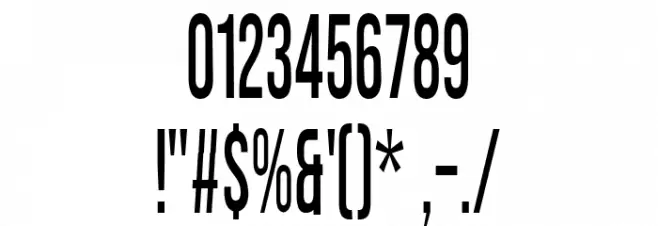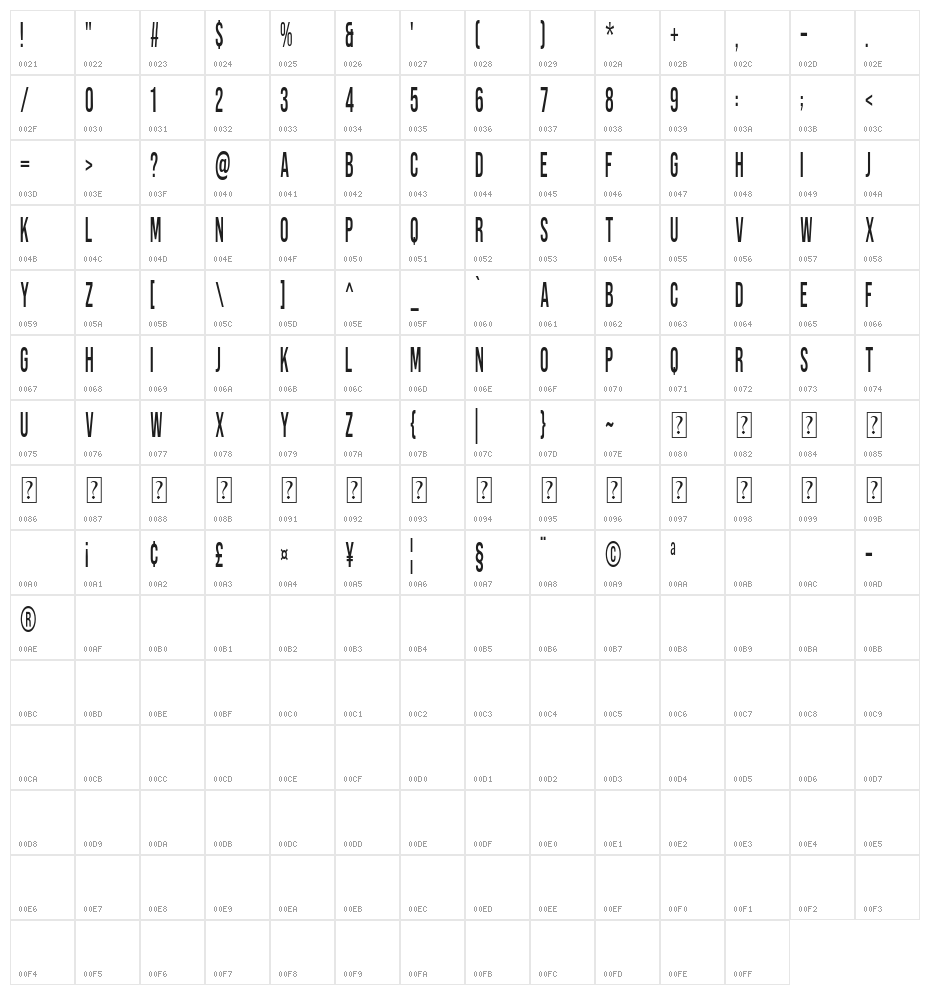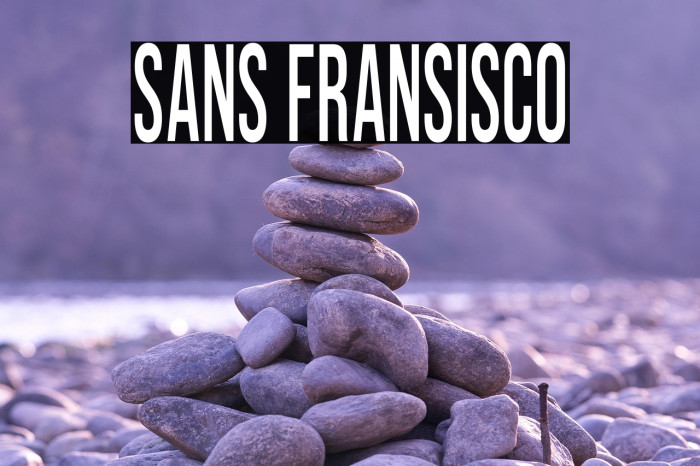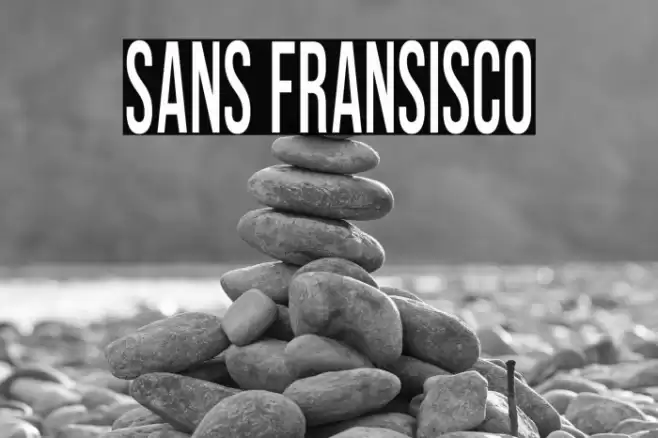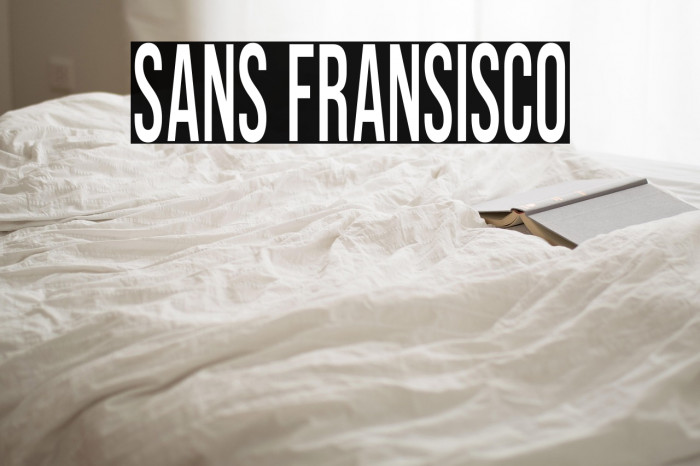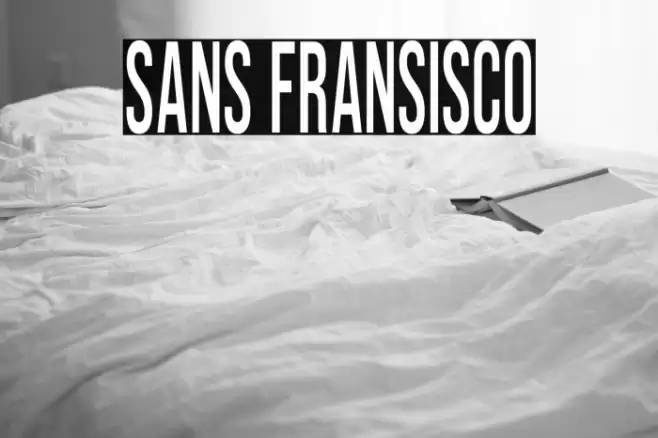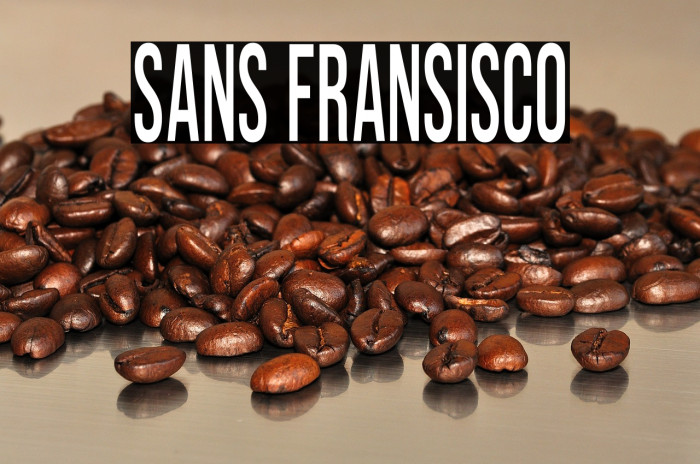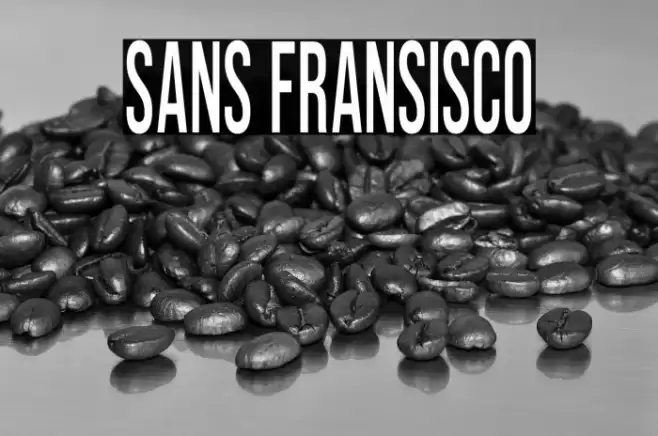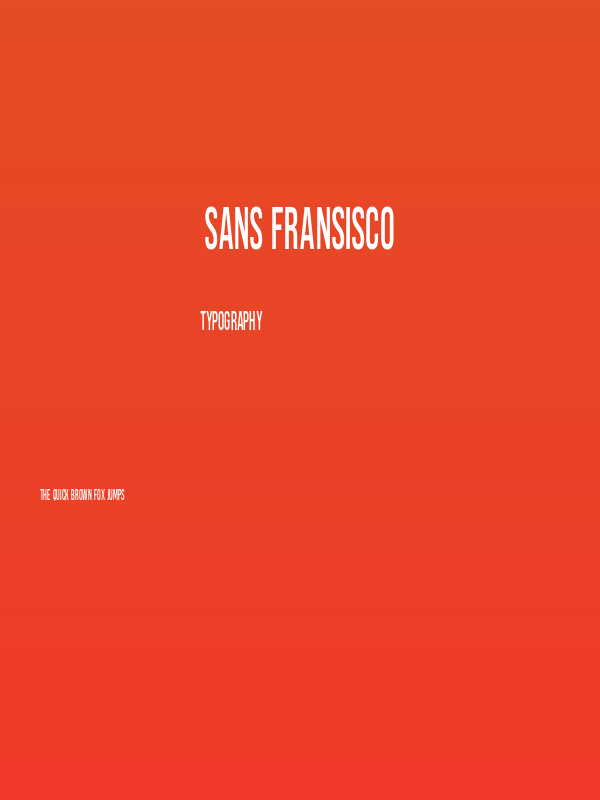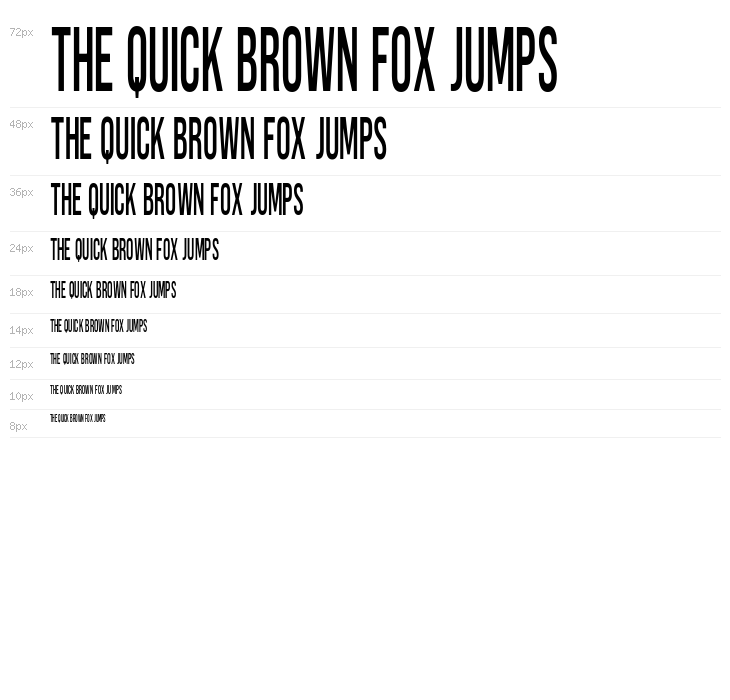
Sans Fransisco Font
Sans Fransisco Description
This font features a bold and modern sans-serif style with clean, straight lines and a uniform stroke width. The characters are tall and narrow, giving it a condensed appearance that maximizes vertical space. The uppercase letters are prominent and assertive, while the lowercase letters maintain a consistent height and width, ensuring readability. The numerals are clear and distinct, matching the overall geometric aesthetic. Special characters are well-defined, enhancing the font's versatility for various applications. Its simplicity and clarity make it suitable for both digital and print media.
| Proposed Projects | Ideal for headlines, posters, branding, and digital interfaces where clarity and impact are essential. |